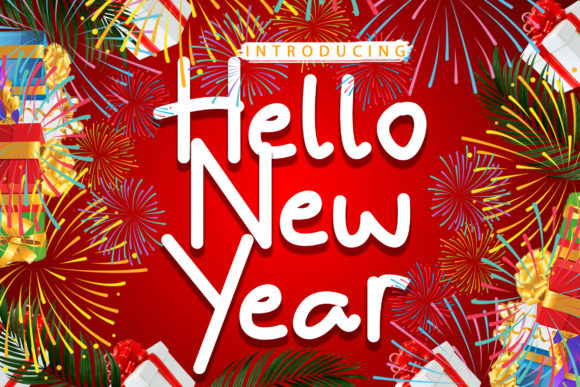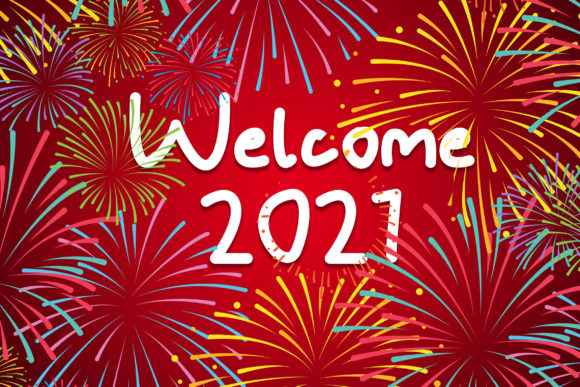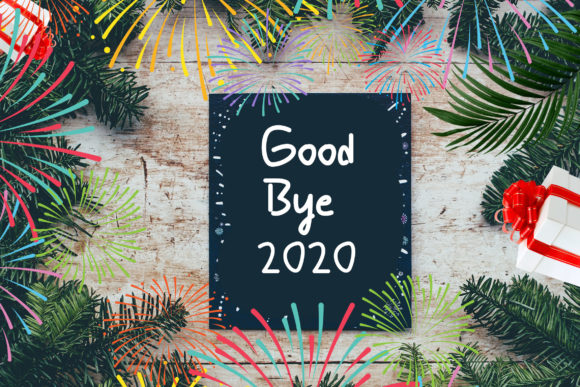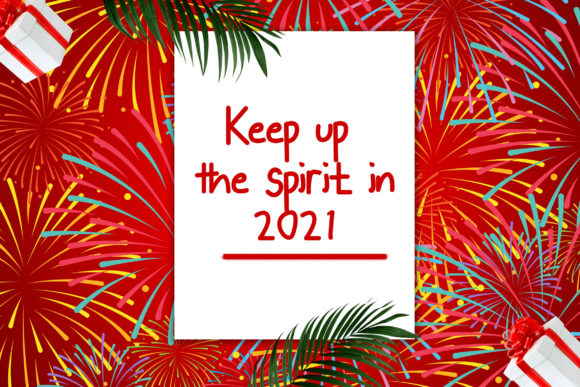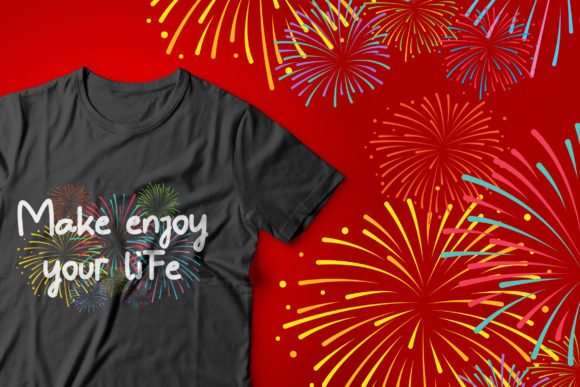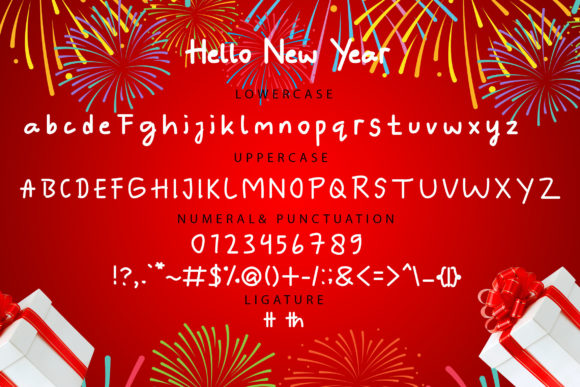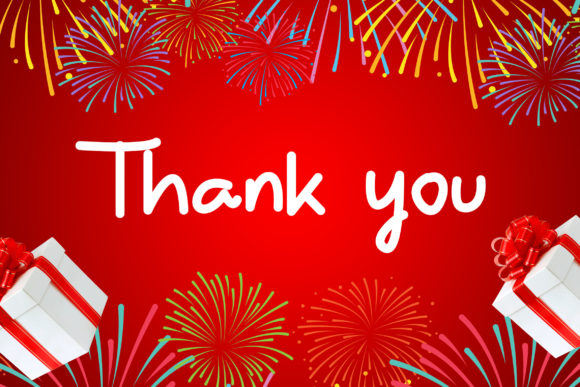
Hello New Year Font
About Hello New Year Font
Hello New Year is a simple and neat handwritten font. Not too thin and not too thick, balanced and varied, this font was designed to enhance the beauty of your projects.